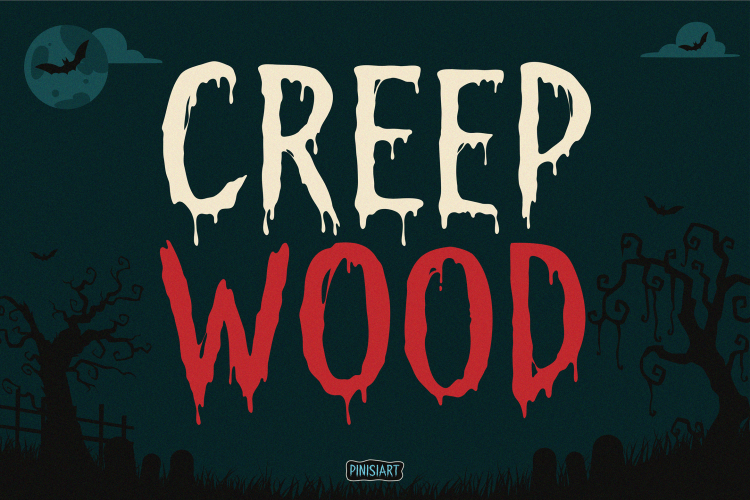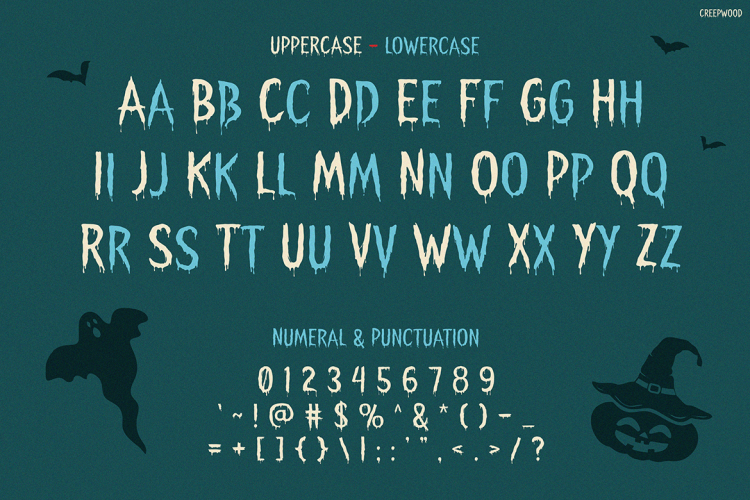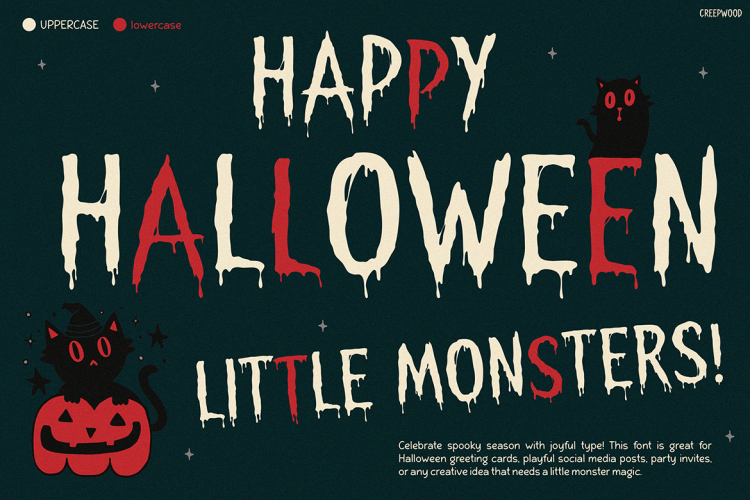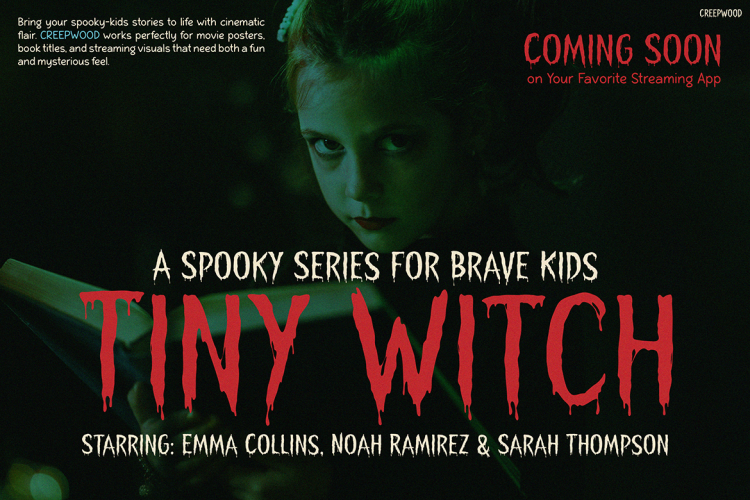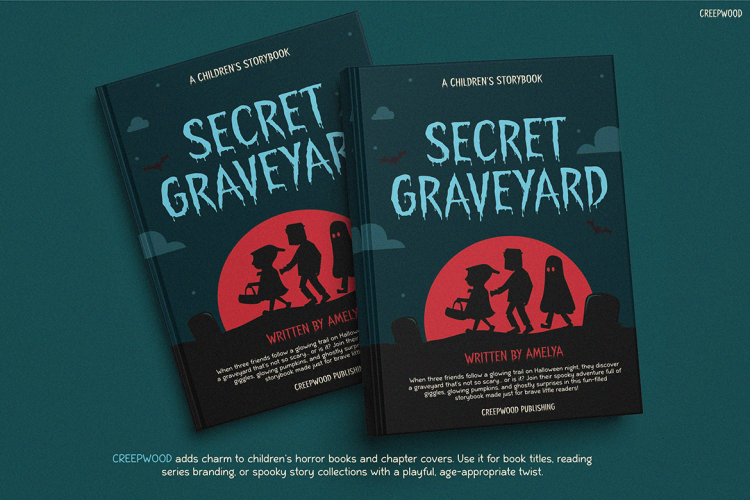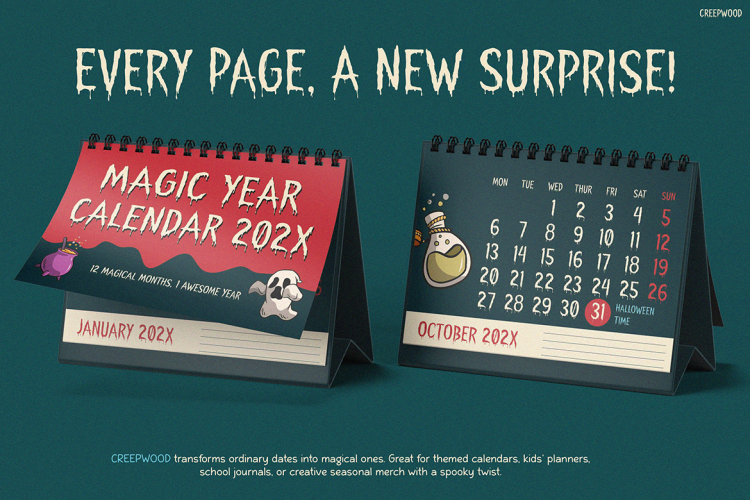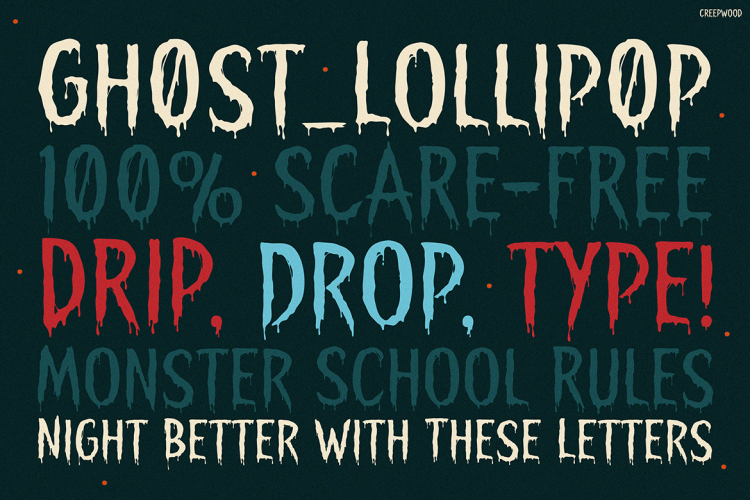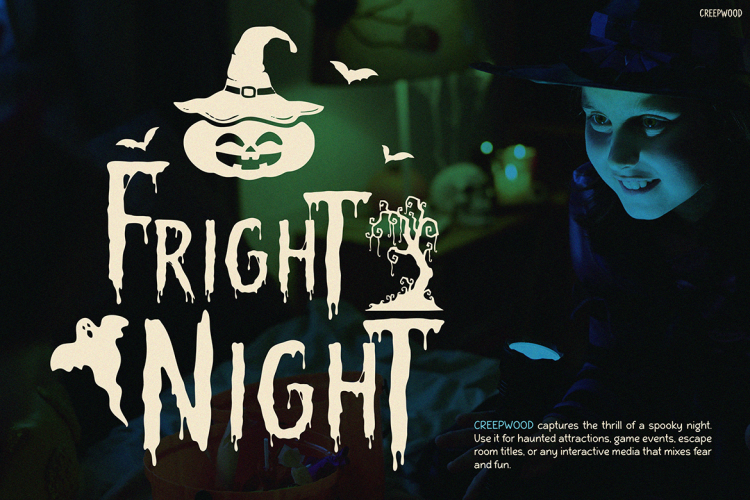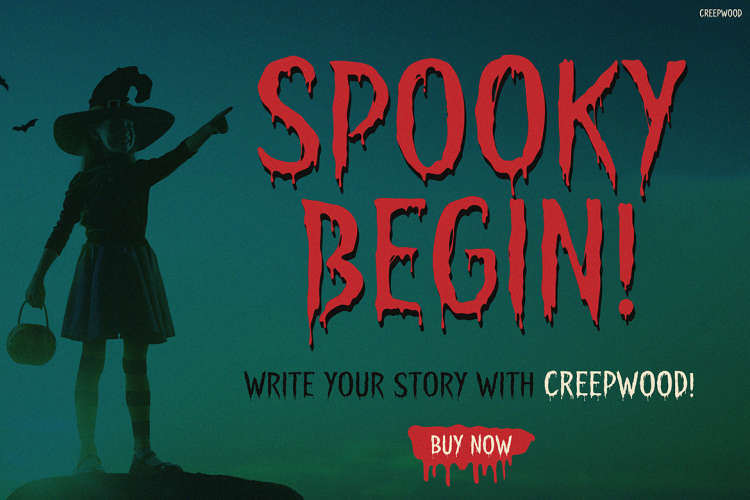
Scary Font Creepwood instantly sets the tone for eerie, playful adventures. Not only does this typeface captivate with its blood-dripping strokes, but it also charms with a uniquely spooky personality. Designed with jagged letterforms and a child-friendly horror vibe, this font is visually stunning for any Halloween-themed project. Moreover, the bold red splatter style creates a chilling yet fun impression โ perfect for grabbing attention and evoking curiosity. Unlike other horror fonts that may feel too intense, Creepwood strikes a delightful balance between scary and silly. As a result, it becomes the ideal choice for both lighthearted and thrilling design projects.
Whether you’re creating posters, story covers, event flyers, or digital media visuals, Creepwood offers a cinematic flair that immediately draws the eye. In fact, the moment someone sees your design, theyโll know something spooky โ but exciting โ is coming. Thanks to its expressive style, Creepwood doesnโt just tell a story; it becomes part of it.
Description and Suitable Users Scary Font Creepwood
The Creepwood font is ideal for designs that aim to be hauntingly fun. For example, itโs perfect for Halloween party invitations, school event posters, kidsโ streaming series titles, or pumpkin night promotions. Even better, itโs playful enough for childrenโs content while still delivering the thrill factor adults will appreciate. Since each character looks like it’s dripping with fresh blood, your design will feel alive โ or perhaps undead!
This font is especially suitable for:
Graphic designers, who often need bold seasonal visuals or spooky branding elements.
Event organizers, particularly those planning Halloween nights, trick-or-treat festivals, or haunted attractions.
Content creators, including YouTubers or streamers working on Halloween specials or storytelling episodes.
Teachers and educators, especially those who want to create fun, festive classroom displays in October.
Parents and hobbyists, who enjoy making DIY decorations, costume tags, or themed scrapbooks.
Additionally, the font’s readability makes it useful for both print and digital formats, increasing its flexibility for different creative projects.